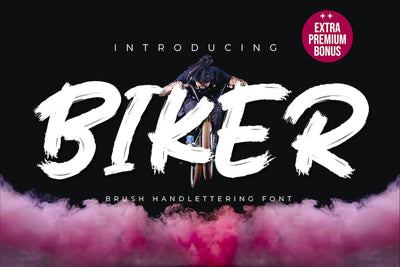
Biker
Biker is a free-themed, hand-drawn display font with a neat selection of brushes. This font is defined by a captivating typographic harmony, perfect for a wide variety of designs. Add it to each of your creative ideas and notice how it makes them stand out!
This font will turn any creative idea into a true piece of art, this font is perfect for strong text with displays for a wide variety of branding, advertising, posters, banners, packaging, headlines, outdoor activity, websites, logo design, and more.